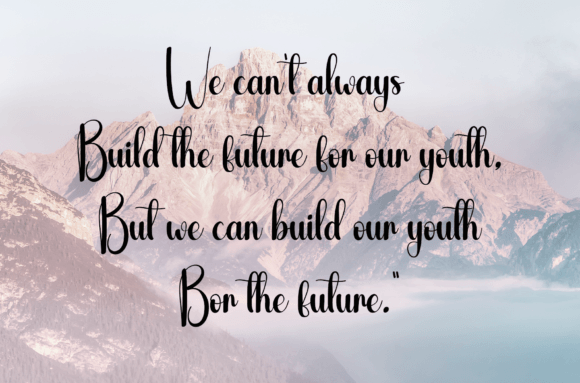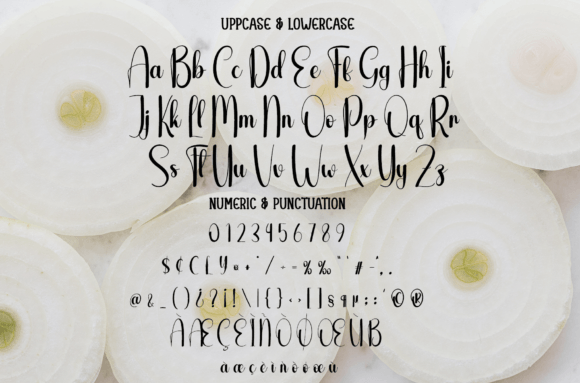
Easter Onion Font: Adding a Sweet and Friendly Touch to Your Designs
Are you looking for a font that can add a playful and charming touch to your designs? Look no further than the Easter Onion font! This sweet and friendly handwritten font is perfect for creating beautiful wedding invitations, greeting cards, and other designs that require a fun and personal touch.
What is Easter Onion Font?
Easter Onion is a fresh and neat handwritten font that is ideal for adding a touch of whimsy to your designs. Its sweet and friendly style makes it perfect for a variety of projects, from wedding invitations and cards to posters and social media graphics. The font’s playful and approachable feel makes it a great choice for designers and crafters who want to create designs that are both fun and elegant.
Key Features of Easter Onion Font
- Sweet and Friendly Style: Easter Onion font has a sweet and friendly style that is perfect for creating designs that are both fun and elegant.
- Handwritten Look: The font has a handwritten look that gives it a personal and approachable feel.
- Fresh and Neat: The font is fresh and neat, making it perfect for creating designs that are both modern and sophisticated.
- Versatile: Easter Onion font is versatile and can be used for a variety of projects, from wedding invitations and cards to posters and social media graphics.
Uses of Easter Onion Font
Easter Onion font is perfect for a variety of design projects, including:
- Wedding Invitations: The font’s sweet and friendly style makes it perfect for creating beautiful wedding invitations that are both elegant and playful.
- Greeting Cards: Easter Onion font is ideal for creating greeting cards for special occasions, such as birthdays, anniversaries, and holidays.
- Posters and Flyers: The font’s fresh and neat style makes it perfect for creating posters and flyers that are both modern and eye-catching.
- Social Media Graphics: Easter Onion font can be used to create social media graphics that are both fun and engaging.
Why Choose Easter Onion Font?
There are many reasons why you should choose Easter Onion font for your design projects. Here are a few:
- Unique Style: Easter Onion font has a unique style that is both sweet and friendly.
- Easy to Read: The font is easy to read, making it perfect for creating designs that are both fun and functional.
- Versatile: Easter Onion font is versatile and can be used for a variety of projects.
- High-Quality: The font is high-quality and is perfect for creating designs that are both professional and elegant.
Tips for Using Easter Onion Font
Here are a few tips for using Easter Onion font in your design projects:
- Use it for Headings: Easter Onion font is perfect for use as headings in your designs.
- Pair it with Other Fonts: The font can be paired with other fonts to create a unique and interesting look.
- Use it for Body Text: Easter Onion font can be used for body text in your designs, especially for short paragraphs of text.
Easter Onion font is a sweet and friendly handwritten font that is perfect for adding a touch of whimsy to your designs. Its fresh and neat style makes it ideal for creating beautiful wedding invitations, greeting cards, and other designs that require a fun and personal touch. With its unique style, ease of use, and versatility, Easter Onion font is a great choice for designers and crafters who want to create designs that are both fun and elegant.